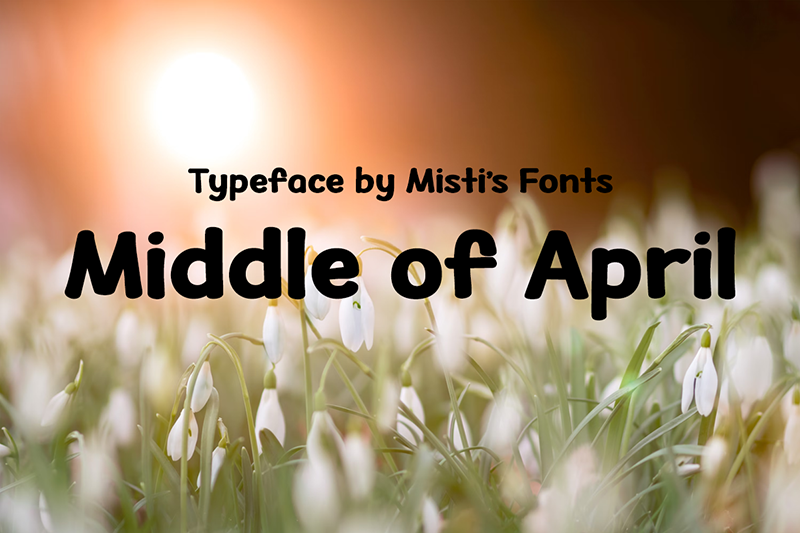
Font name: | Middle of April |
Middle of April is a bold font bursting with spring charm. Its playful strokes and lively energy make it perfect for seasonal designs, greeting cards, and fresh branding. Add a touch of warmth and personality to your projects! Terms Of Use and Commercial Licensing: https://mistifonts.com/middle-of-spring/ |